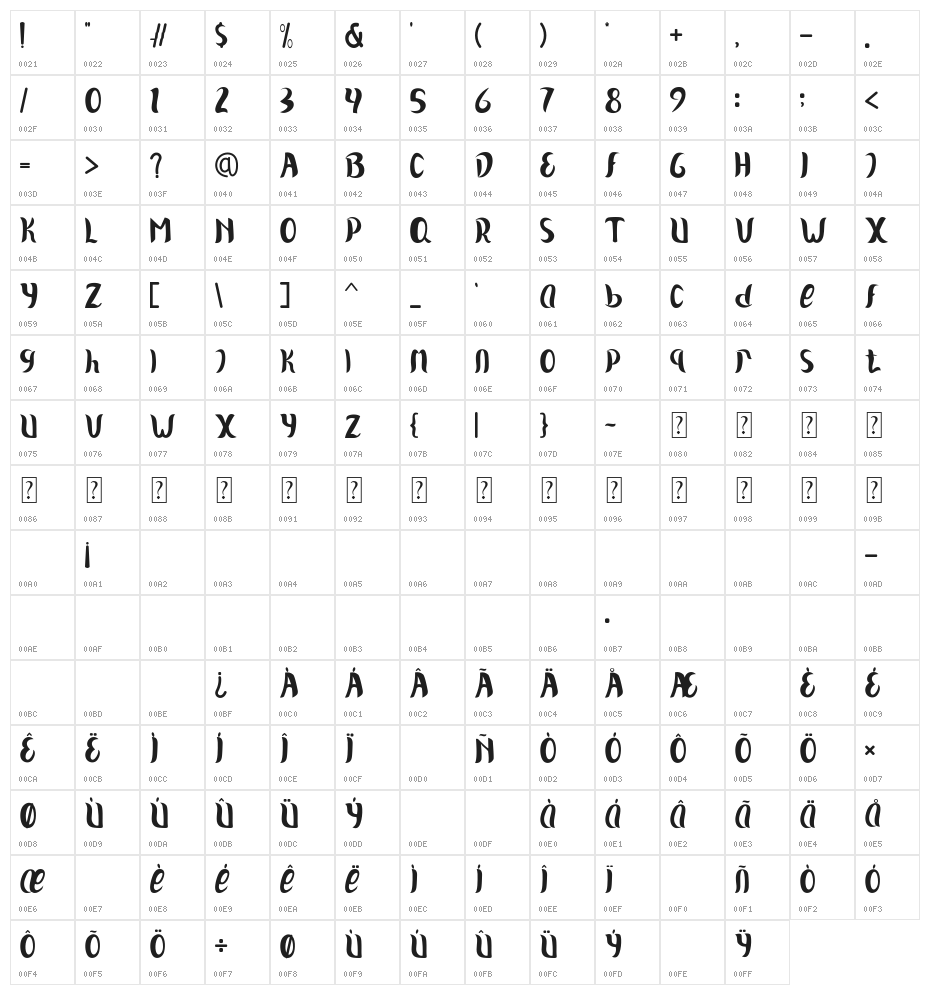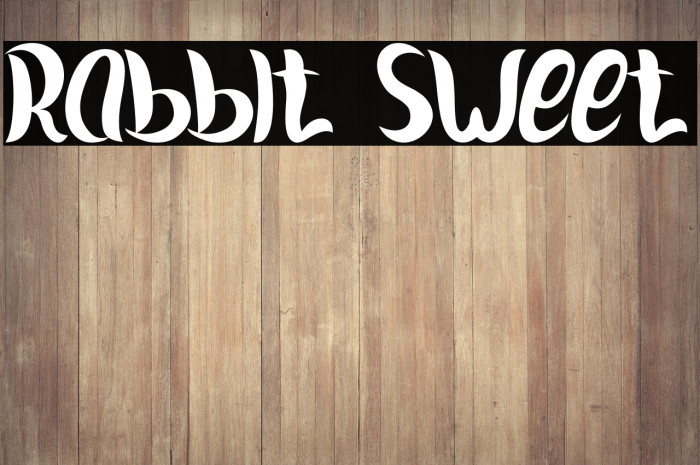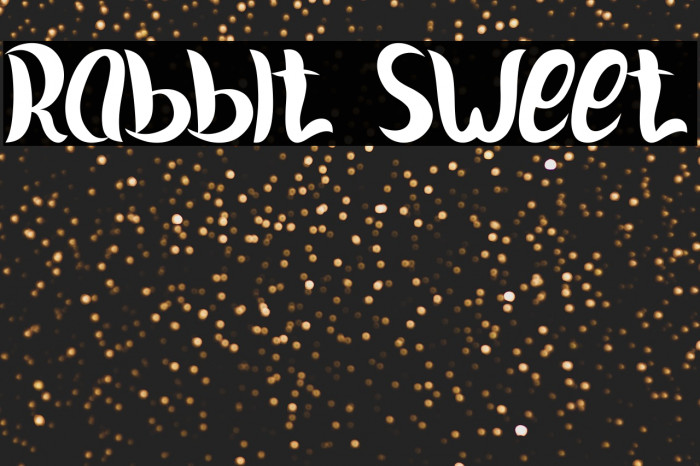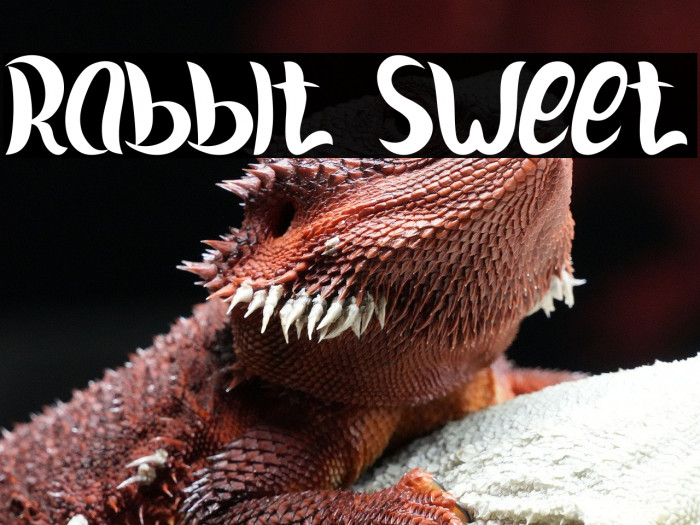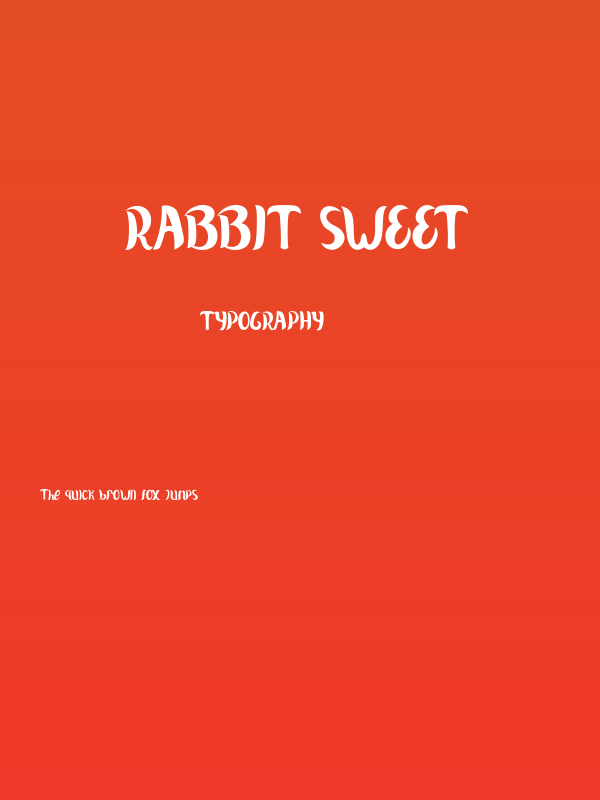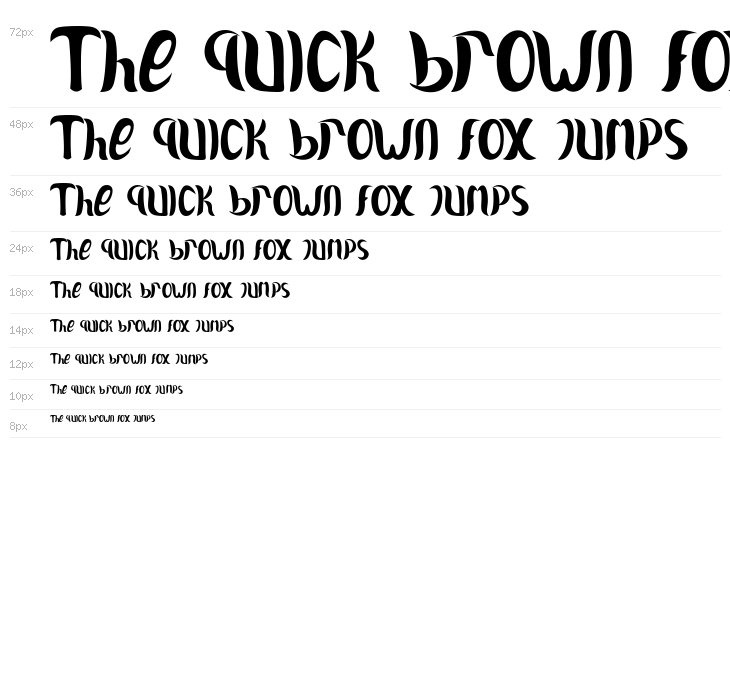
Rabbit Sweet Font
Rabbit Sweet Description
This font features a playful and whimsical style, characterized by its bold and curvy letterforms. The strokes are thick and exhibit a high contrast, with some letters having exaggerated curves and swirls that add a dynamic and energetic feel. The uppercase and lowercase letters maintain a consistent style, with a slight slant that gives a sense of movement. The numbers and special characters follow the same design principles, ensuring a cohesive look across all glyphs. This font is ideal for projects that require a fun and lively aesthetic.
| Proposed Projects | Ideal for children's book covers, playful branding, party invitations, and creative posters. |